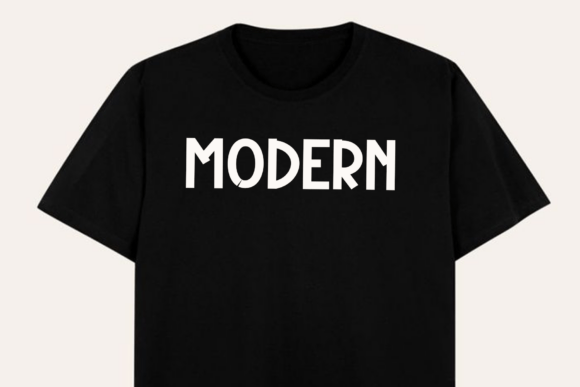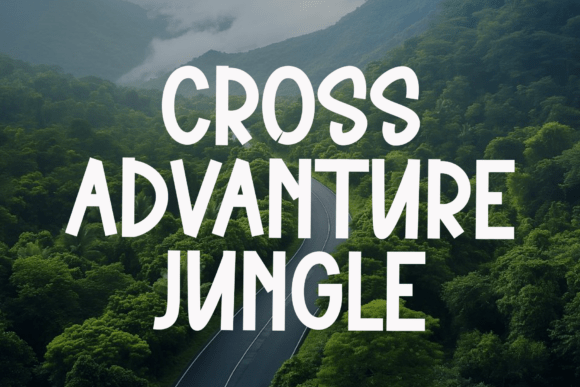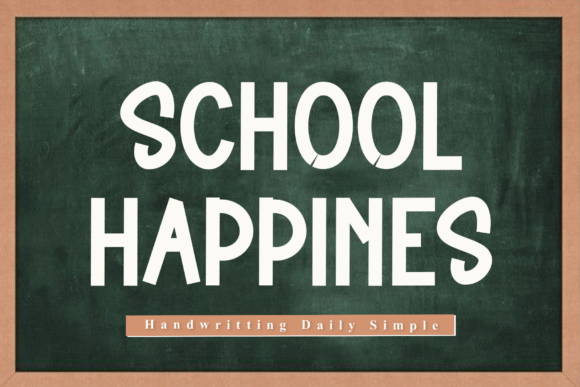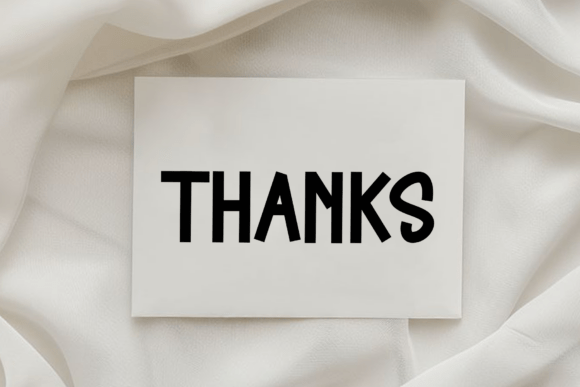
The Designer Font: A Timeless Handwritten Treasure
I’ll never forget the moment I stumbled upon the Designer font. I was working on a branding project for a boutique client, and I was struggling to find the perfect handwritten font that would capture the essence of her elegant and sophisticated brand. As I scrolled through my font library, I came across Designer, and it was love at first sight! ✨
The Designer font is a lovely and timeless handwritten font that has become a staple in my design toolkit. It’s the perfect choice for creating eye-catching logos, branding, and quotes that exude a sense of sophistication and elegance. Every letter has a unique and beautiful touch, which will make your design come alive!
- ✨ Unique and beautiful letterforms that add a touch of elegance to any design
- 🎨 Versatile and works well for a variety of design projects, from logos to quotes
- 💻 Great for digital and print designs
While the Designer font is an amazing addition to any design project, there are a few quirks to be aware of:
- 🤔 Some letters may not work well with certain OpenType features or glyphs
- ⚠️ Limited availability of stylistic alternates, which may limit design flexibility
The Designer font was inspired by the classic handwritten fonts of the 19th century. Its creator, a talented type designer, wanted to craft a font that would evoke a sense of elegance and sophistication. The result is a timeless font that’s perfect for a variety of design projects.
| Font Name | Designer Font |
| Author | Sansana |
| What is the Designer font? | The Designer font is a lovely and timeless handwritten font perfect for creating eye-catching logos, branding, and quotes. |
| Is the Designer font suitable for digital designs? | Yes, the Designer font is highly legible and works well for digital designs, including social media graphics, websites, and email marketing campaigns. |